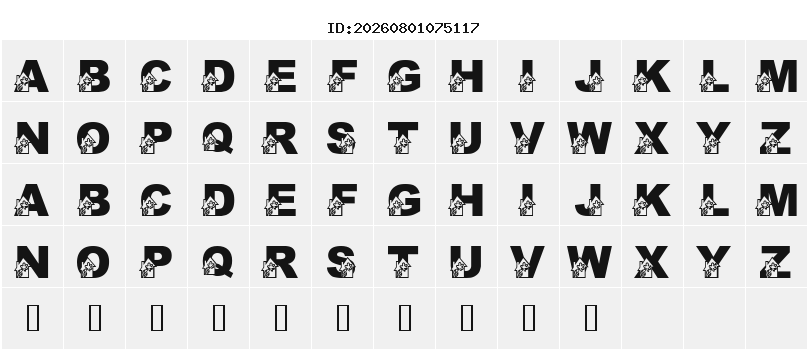
LMS Holly's Greenhouse Preview
• Font Name: LMS Holly's Greenhouse
• Full Font Name: LMS Holly's Greenhouse
About LMS Holly's Greenhouse.ttf
LMS Holly's Greenhouse.ttf is a modern, elegant sans-serif font designed for ultimate readability and visual harmony. Perfect for branding, headlines, web design, and print materials.